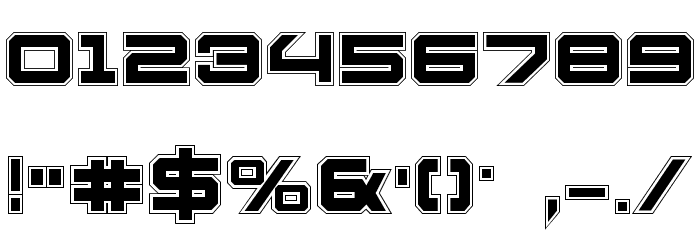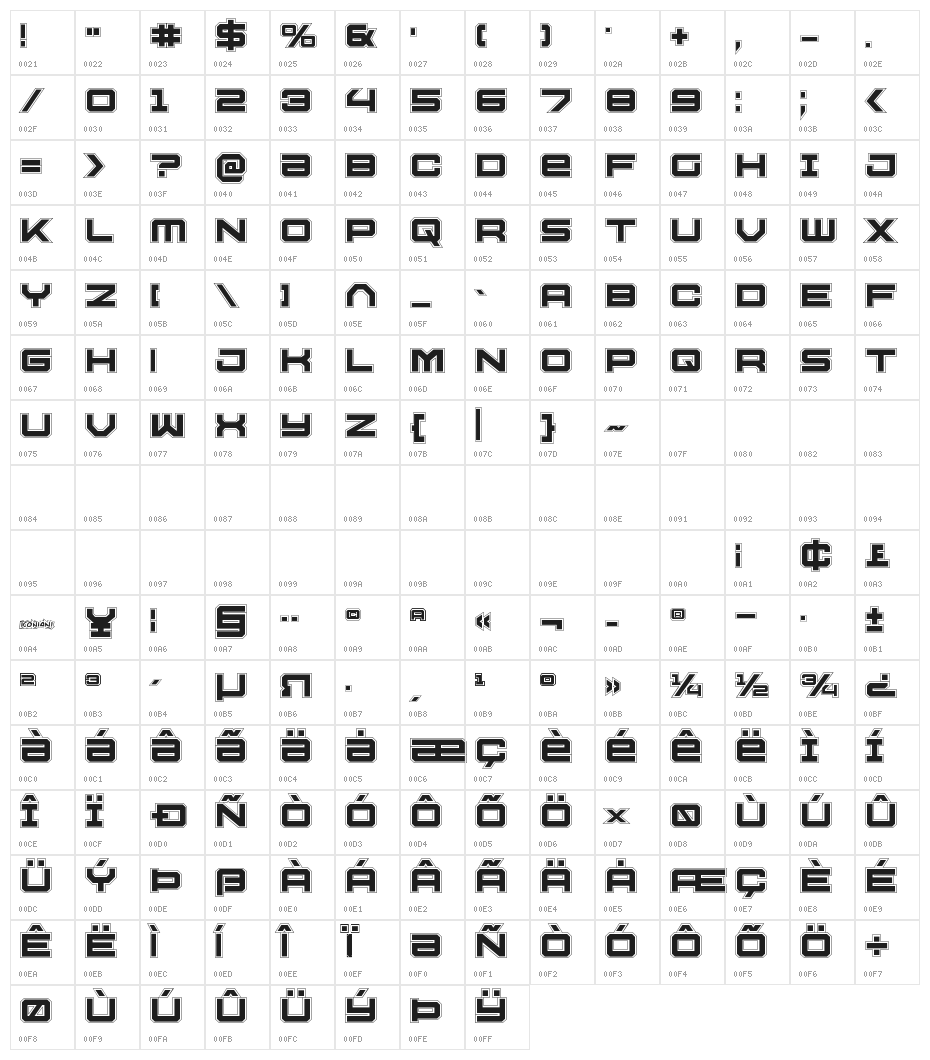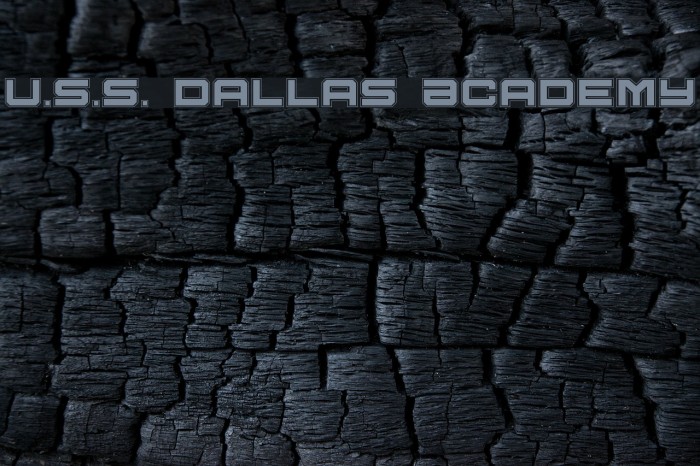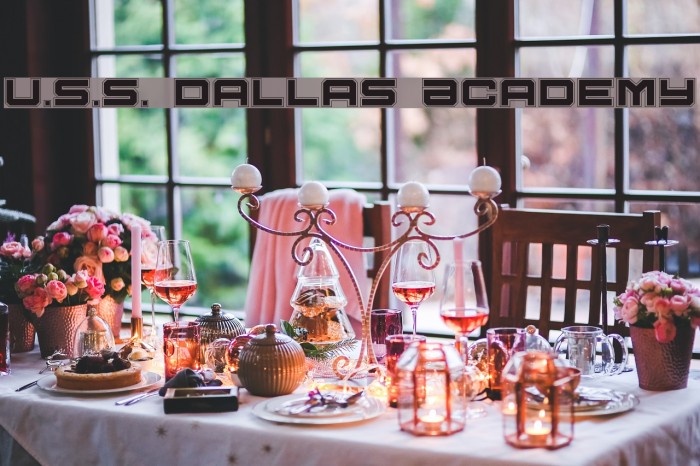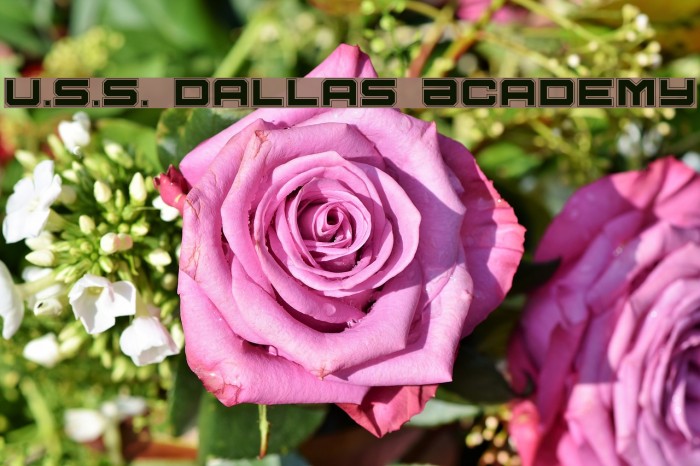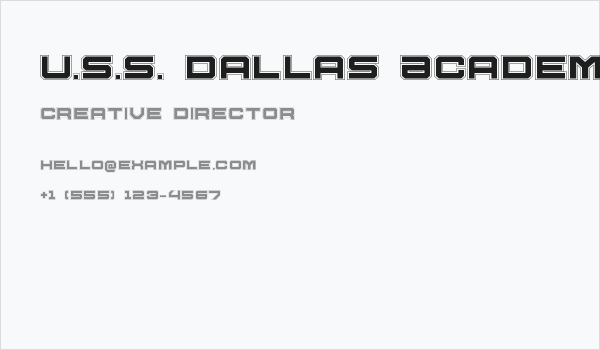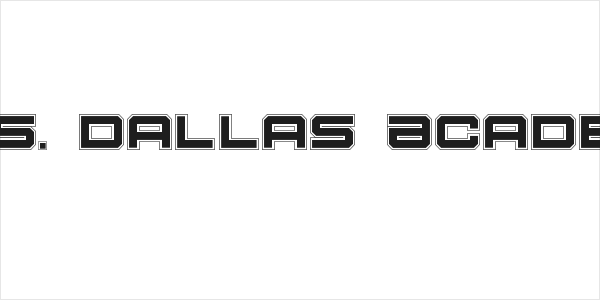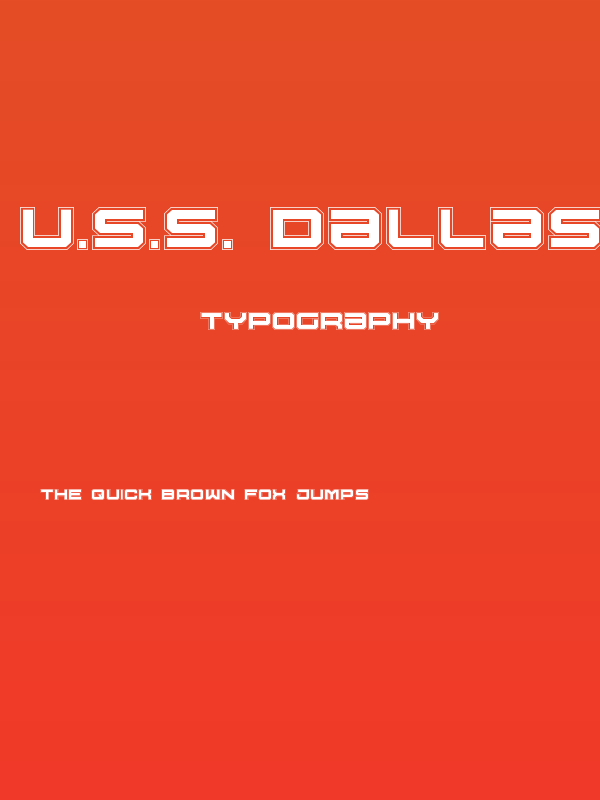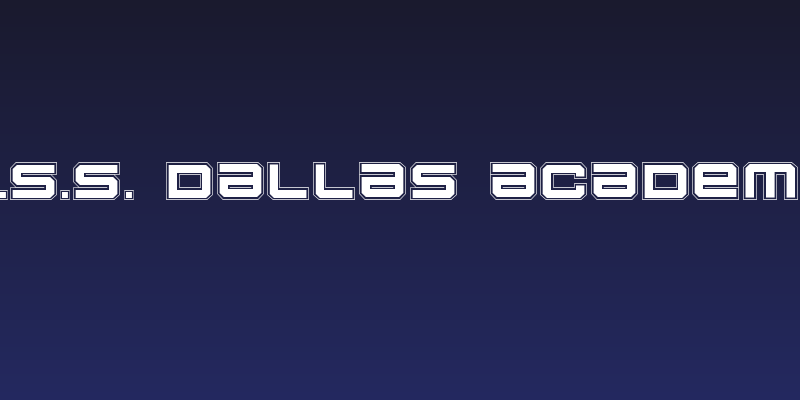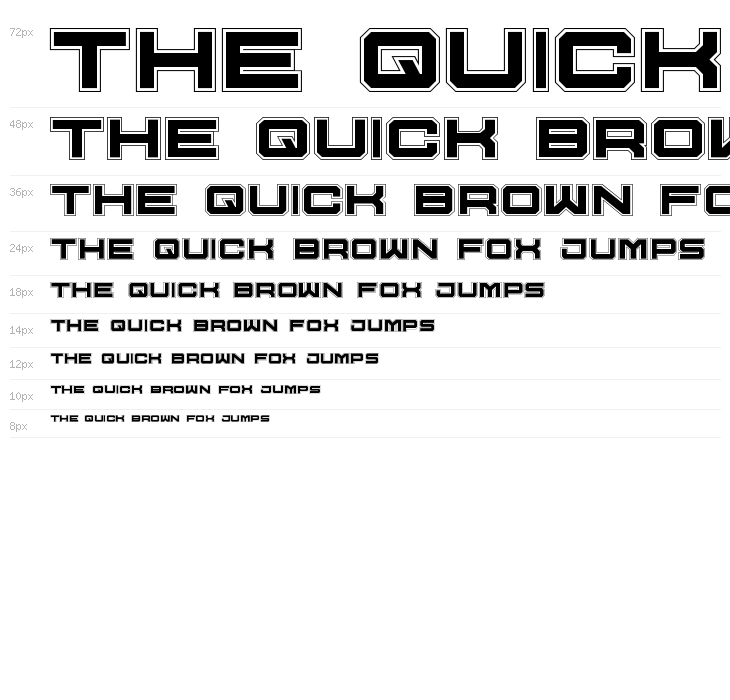
U.S.S. Dallas Academy Font
U.S.S. Dallas Academy Description
This font features a bold, geometric design with a strong, futuristic aesthetic. The characters are constructed with thick, uniform strokes and sharp angles, giving them a mechanical and industrial feel. The uppercase and lowercase letters maintain a consistent style, with the uppercase being slightly more pronounced. The numbers and special characters follow the same design principles, ensuring a cohesive look across all glyphs. The font's structure is clean and precise, making it suitable for projects that require a modern and technical appearance.